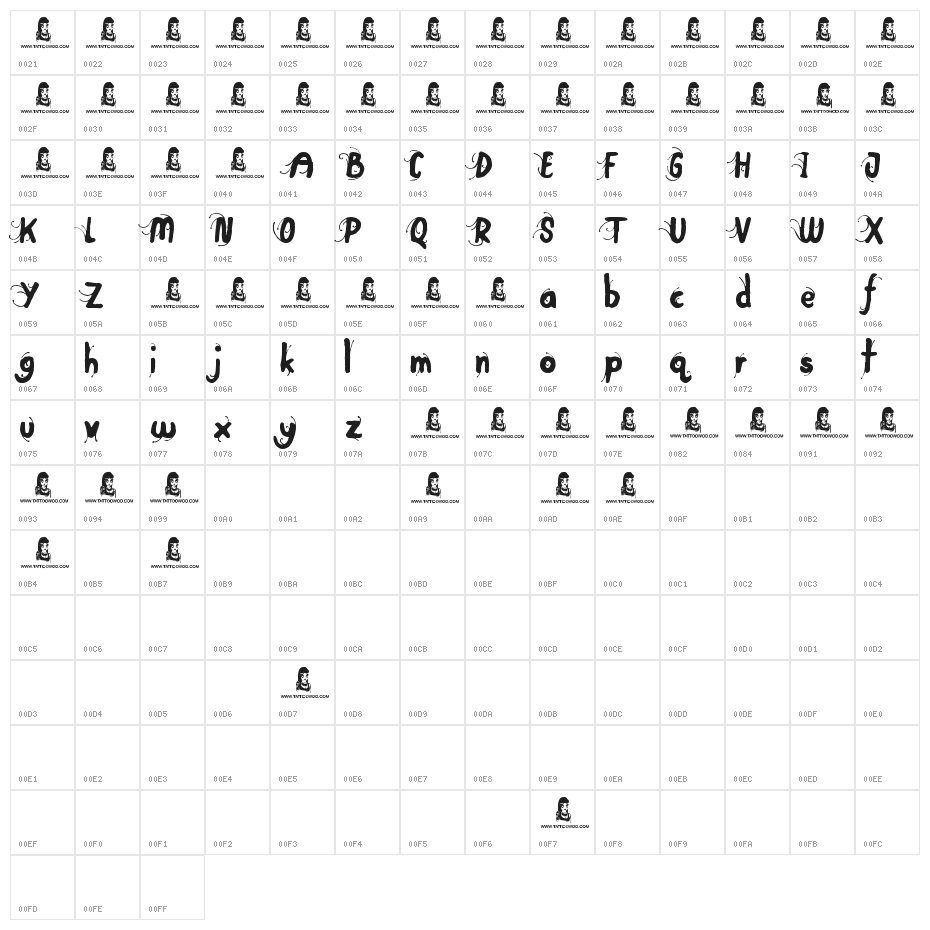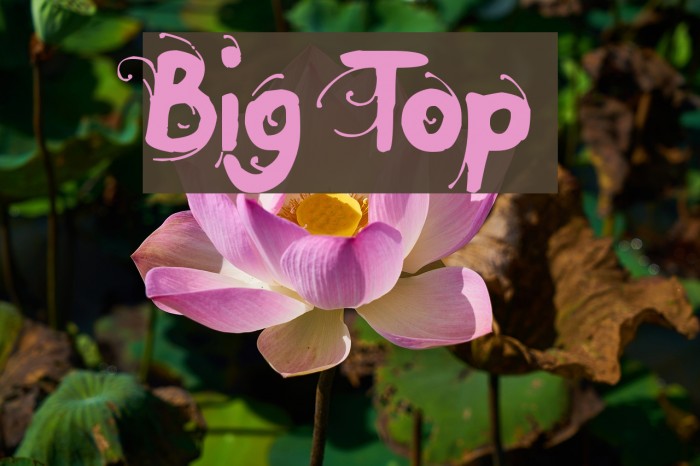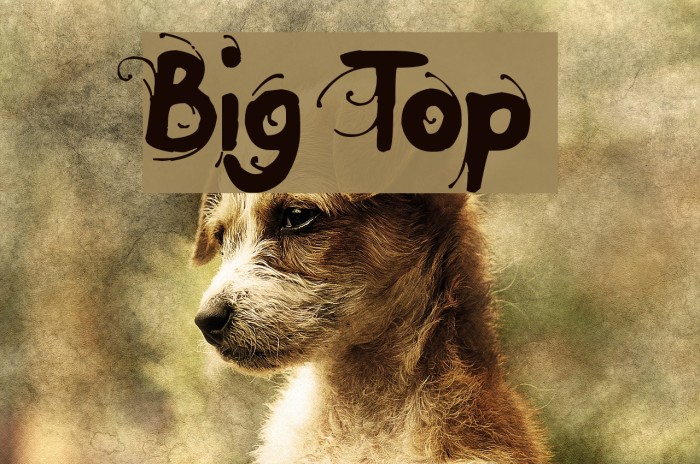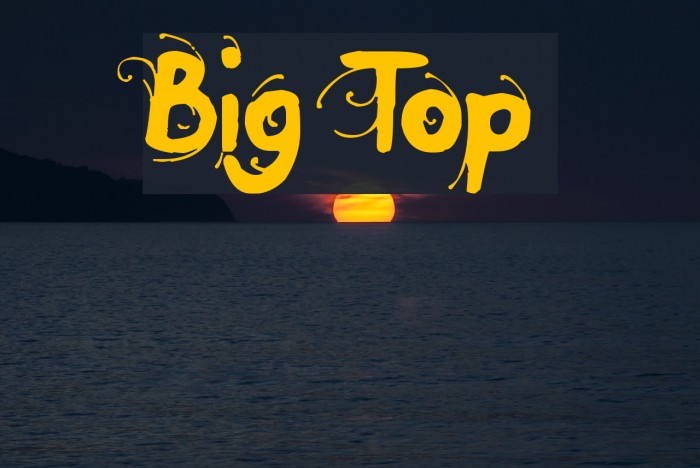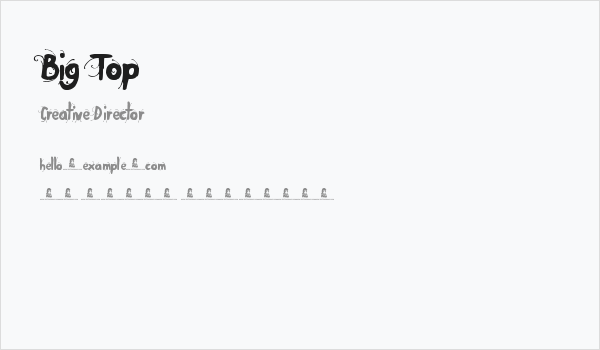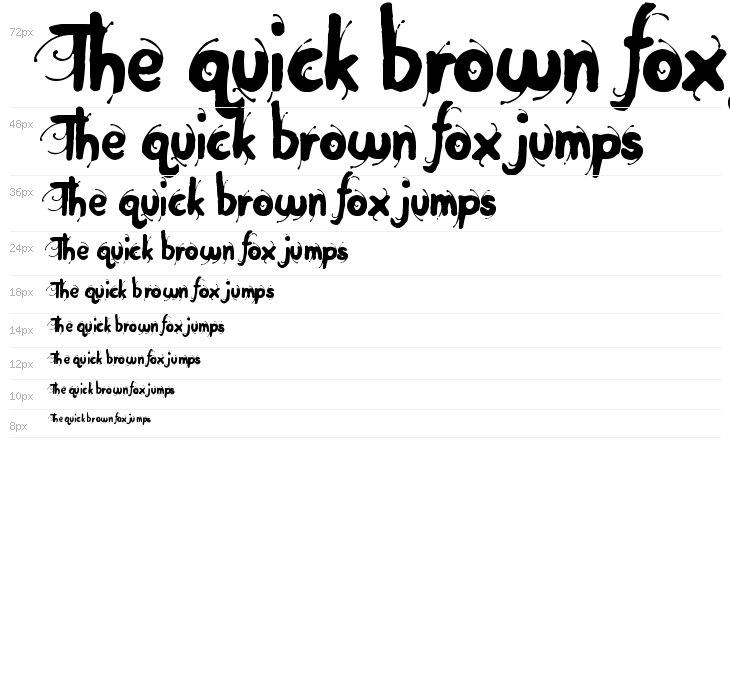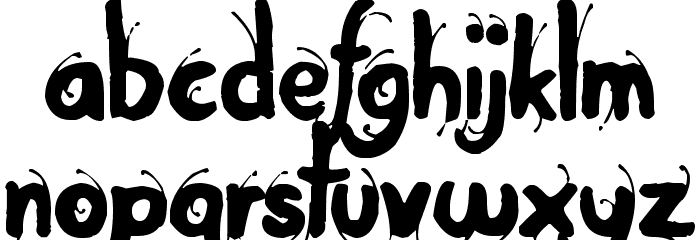
Big Top Font
Big Top Description
This font features a bold and playful design with a whimsical flair. Each character is adorned with unique, decorative elements that resemble ink splatters or artistic flourishes, giving it a dynamic and lively appearance. The strokes are thick and bold, contributing to a strong visual impact. The overall style is reminiscent of a circus or carnival theme, making it ideal for projects that require a fun and engaging aesthetic. The uppercase and lowercase letters maintain a consistent style, while the numbers and special characters integrate seamlessly with the overall design.